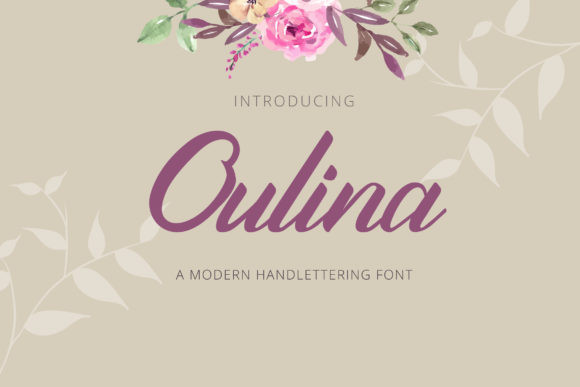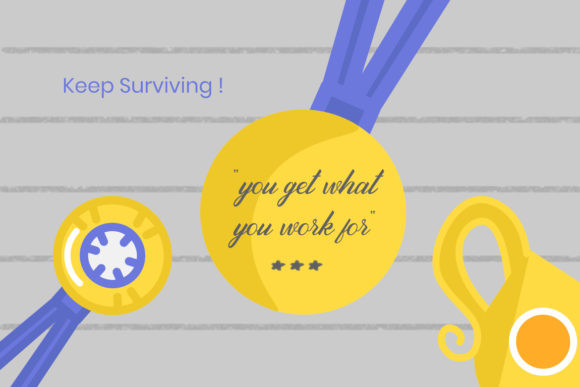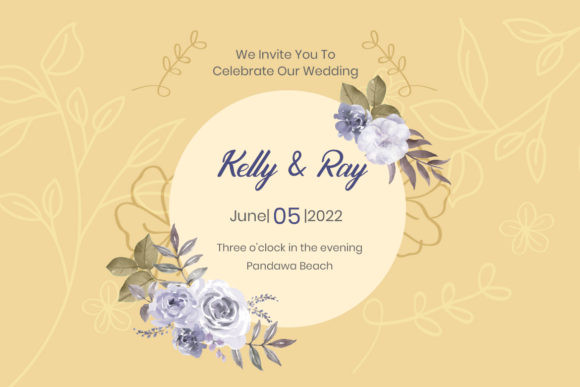
Oulina Font
Oulina is an unique handwritten font. Whether you’re using it for crafting, digital designing, presentations, or greeting card making, it’s perfect!